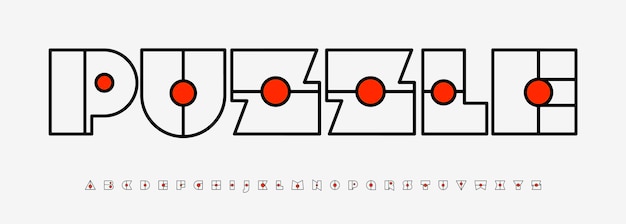
Puzzle modular alphabet outlined geometric font with red ball Typescript for creative mental game branding logicbased play typography abstract typographic gaphic design Vector typeset